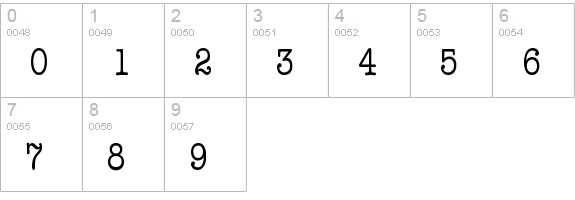
Headline Thin Normal is a delicate, low-contrast variant in the Headline typeface family \xE2\x80\x94 well suited to fashion editorial, minimal branding, and high-contrast display.